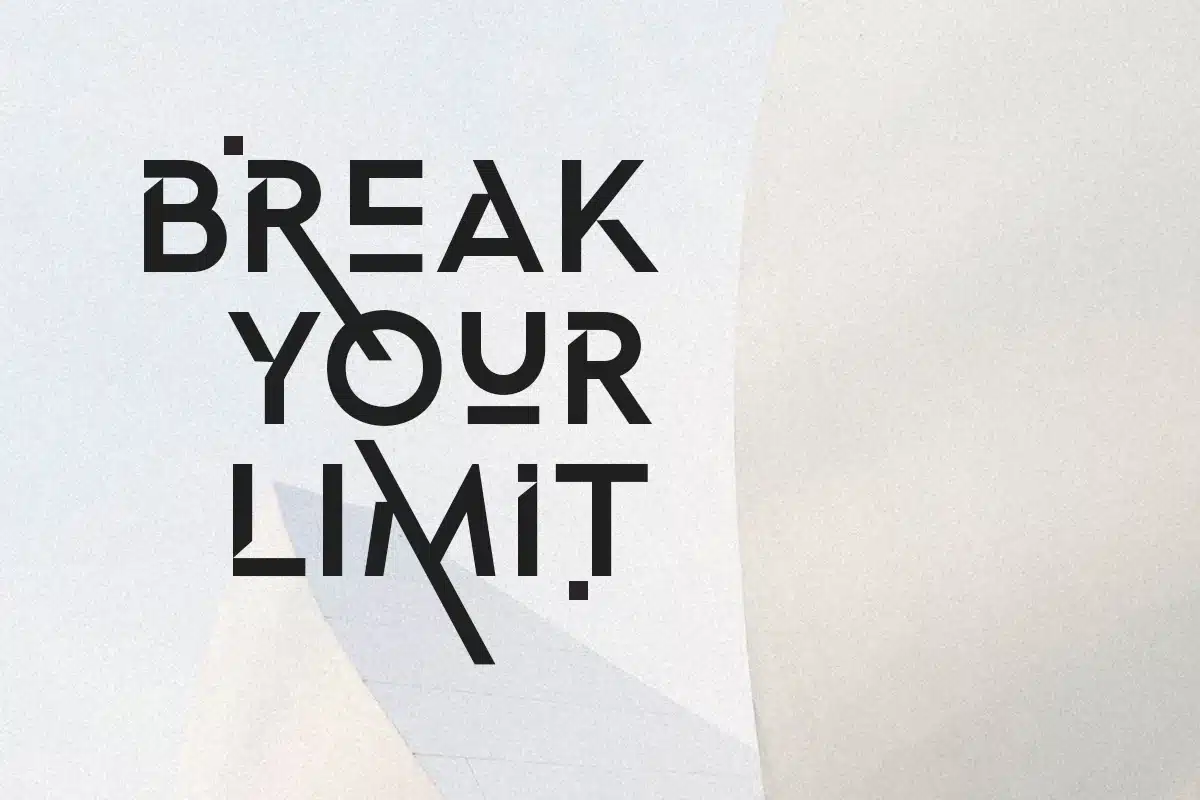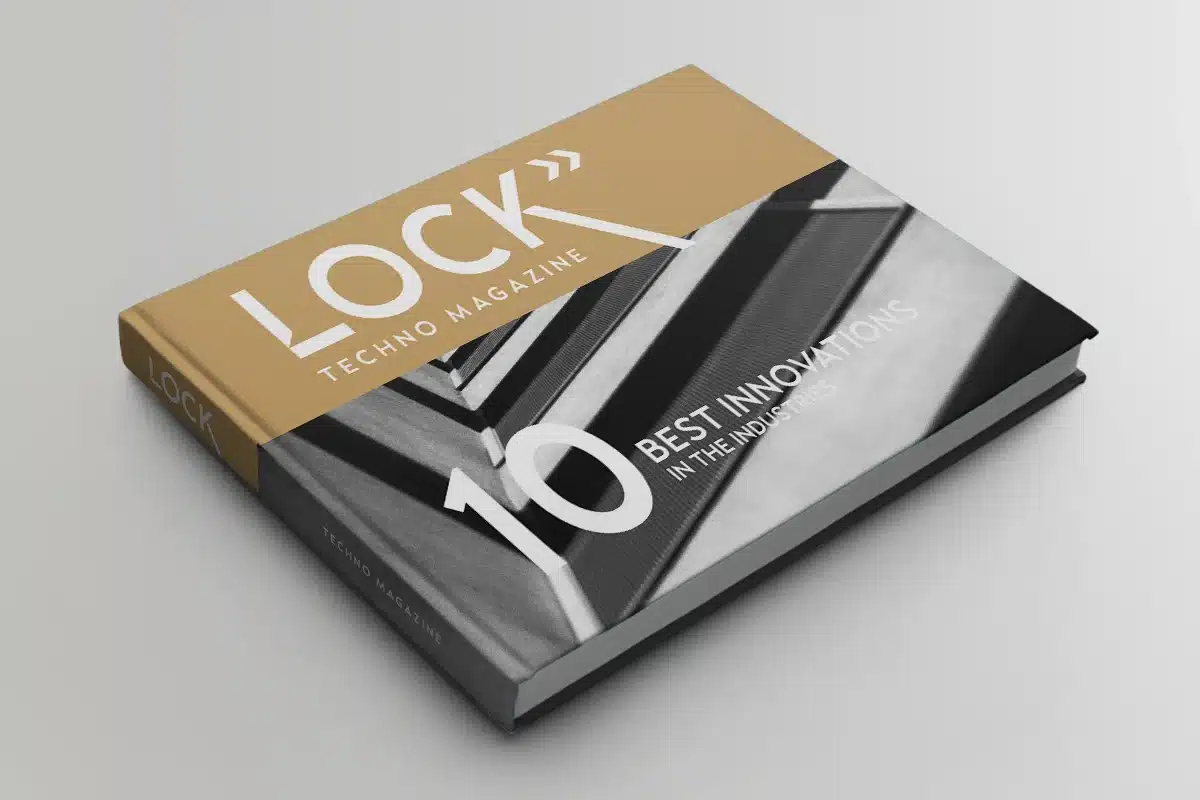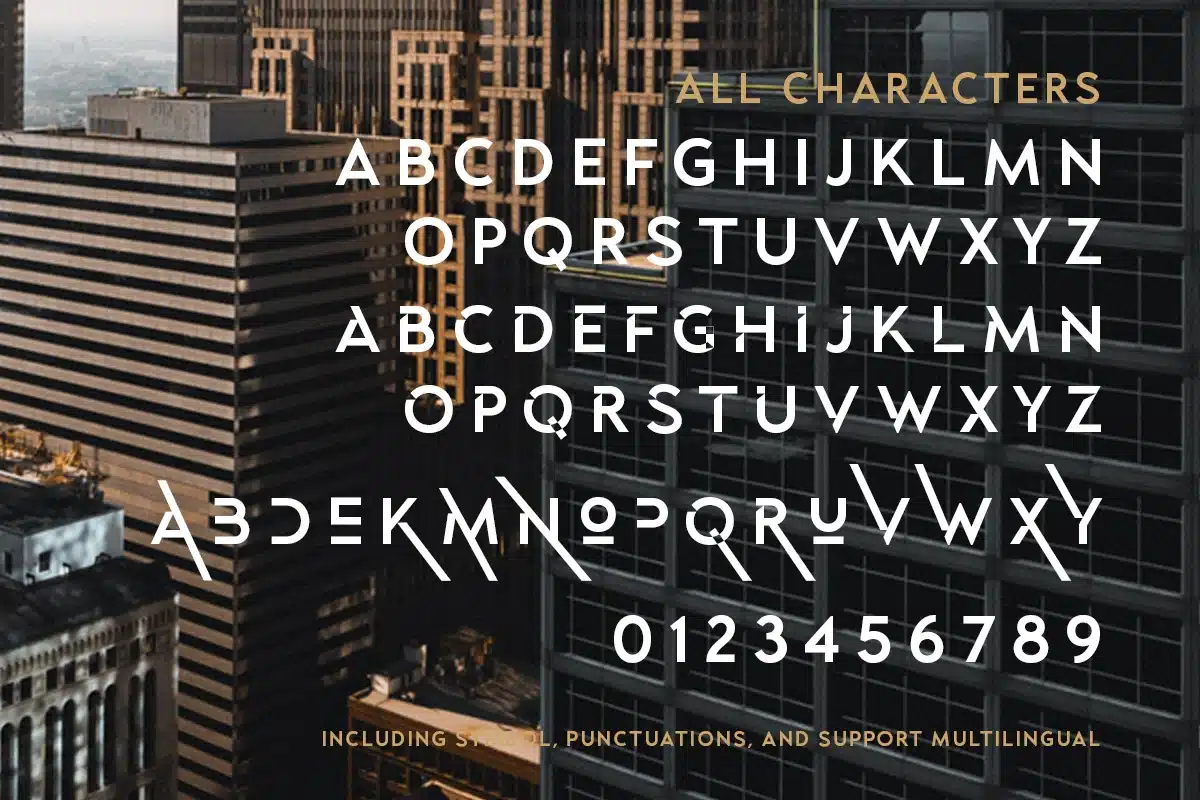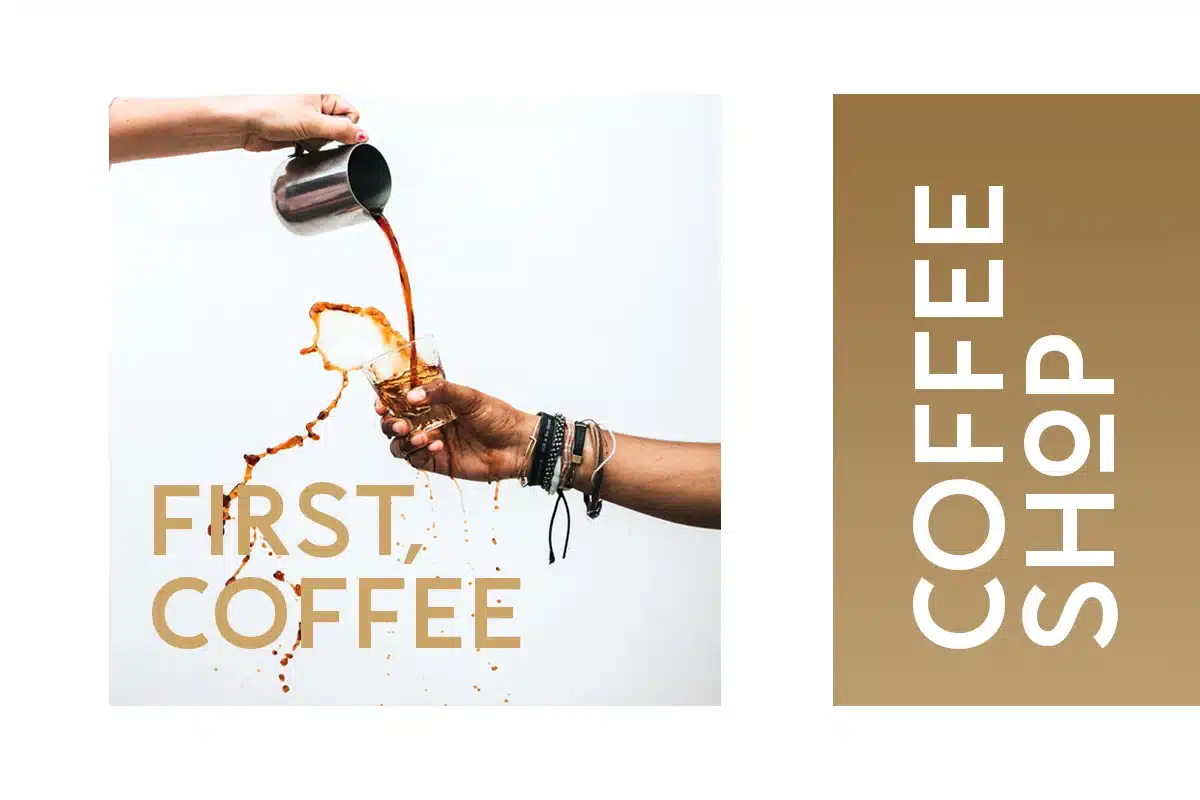
Blackpast – Futuristic Logo Font
Introducing, Blackpast, a futuristic logo font with alternates!
Blackpast is a sans based font with unique lowercase that will make your design looks futuristic and modern. You can use this font for any purpose, especially to make logotype. You can mix and match the uppercase and lowercase to make your logo more readable. This font also have special alternates that will make your design more stand-out!